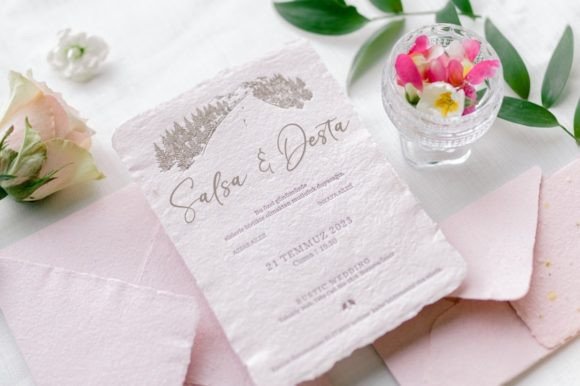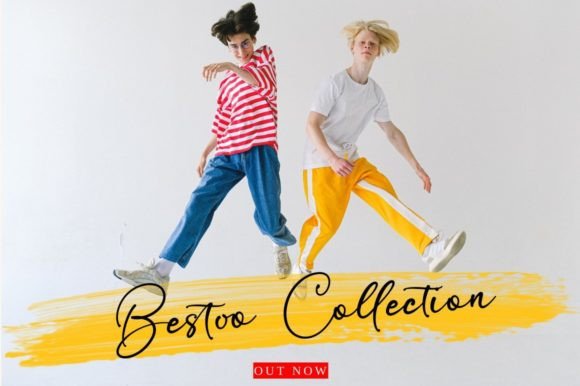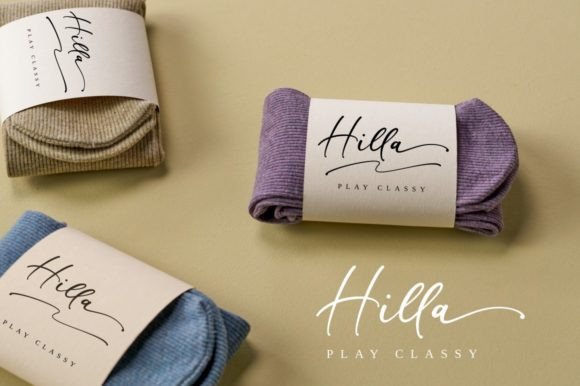
Introduction to Rasta Masta Font
Rasta Masta is a flowing handwritten font, described by an elegant touch, perfect for your favorite projects.
Key Features of Rasta Masta Font
Why Choose Rasta Masta Font?
Rasta Masta Font offers exceptional quality and versatility, making it a valuable addition to your design toolkit. Whether you’re creating for personal projects or commercial use, Rasta Masta Font delivers professional results.